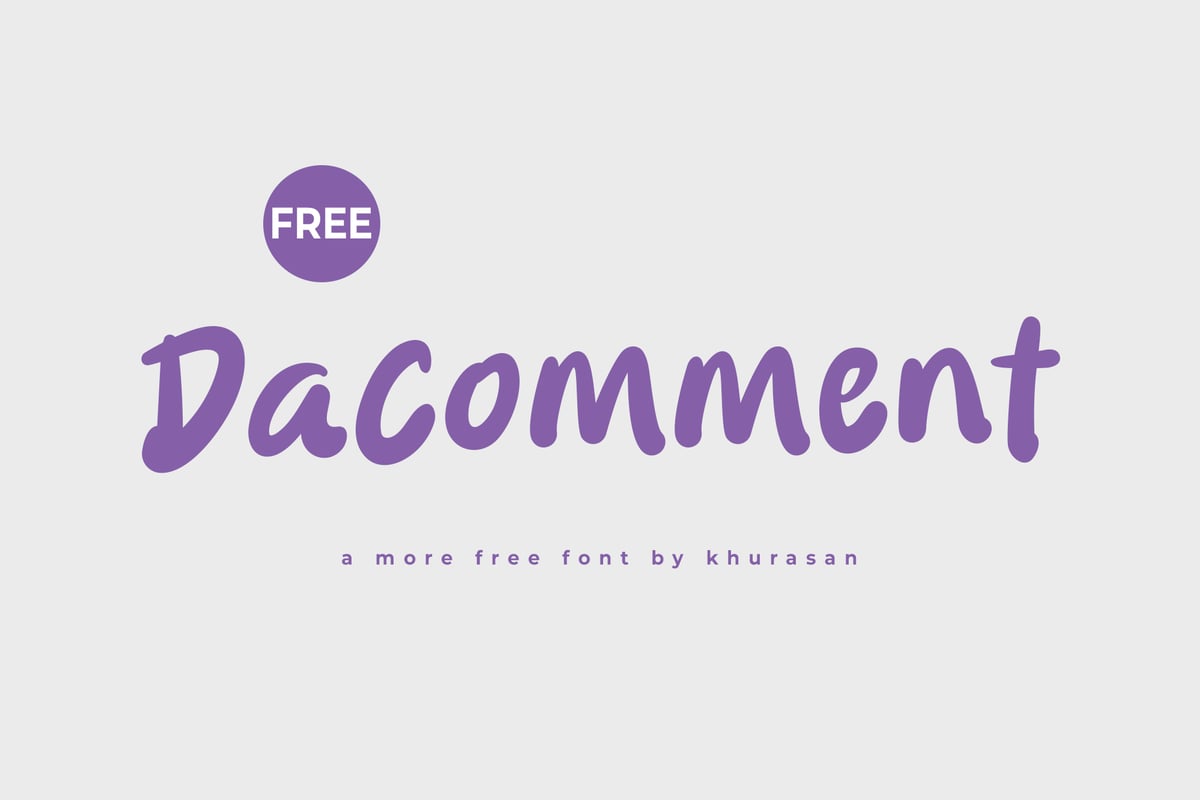
Free Dacomment - a Handwriting Free Font
Meet Dacomment - the playfully confident font that brings effortless charm to every design project.
Looking for a typeface that doesn't take itself too seriously? Dacomment is your perfect solution! Drawing inspiration from casual doodles and bold marker sketches, this handwritten font delivers a relaxed, handcrafted aesthetic to any creative work. Whether you're designing birthday cards or creating trendy apparel, Dacomment makes everything look naturally effortless.